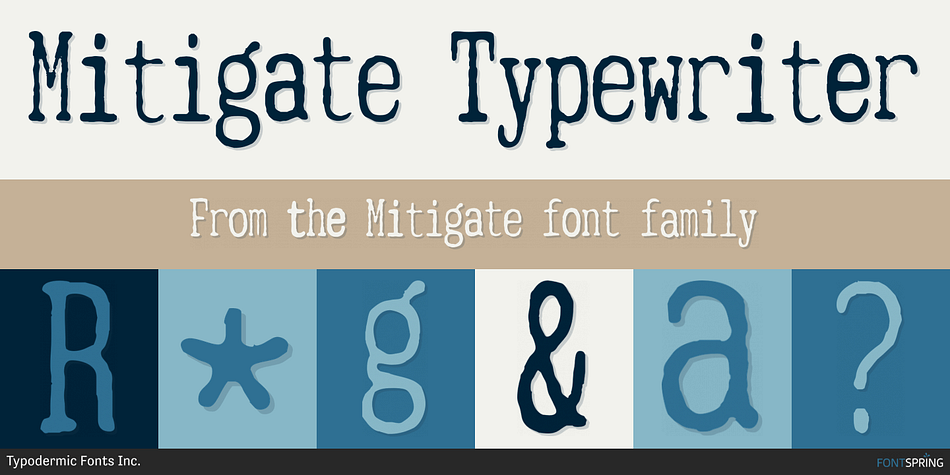
Mitigate Typewriter
Mitigate is a slab serif and typewriter font family. This typeface has nine styles and was published by Typodermic Fonts Inc.
In the fast-paced world of journalism, time is always of the essence. That’s why we need tools that work as quickly as we do. And in the world of typography, Mitigate is the answer.
Mitigate is the condensed slab-serif typeface that every designer needs in their arsenal. You see, in a world of broad and regular typewriter fonts, Mitigate stands out with its compact design that makes it perfect for fitting in more text in less space.
But that’s not all. Mitigate also features two distressed styles, giving your text that authentic typewriter effect that readers love. And if you’re using OpenType-aware apps, you’ll appreciate the custom ligature combinations that make your text even more unique.
So, don’t let your message get lost in a sea of words. Choose Mitigate and make your words stand out.